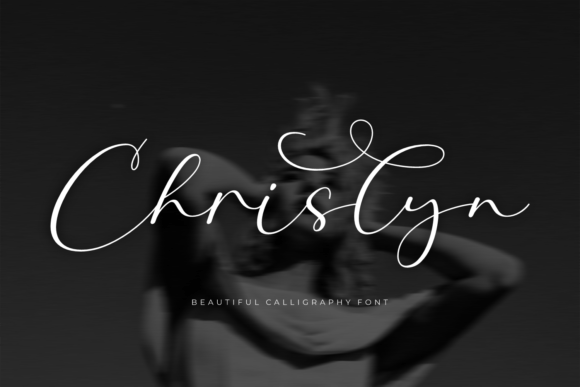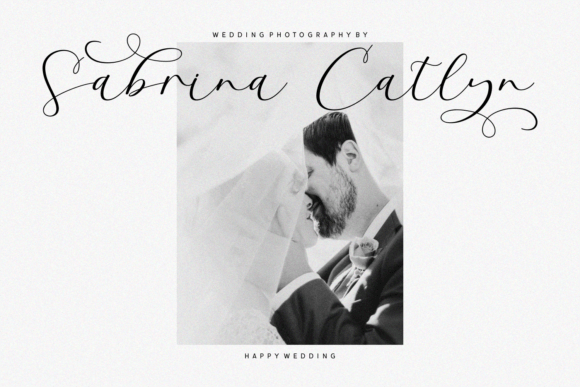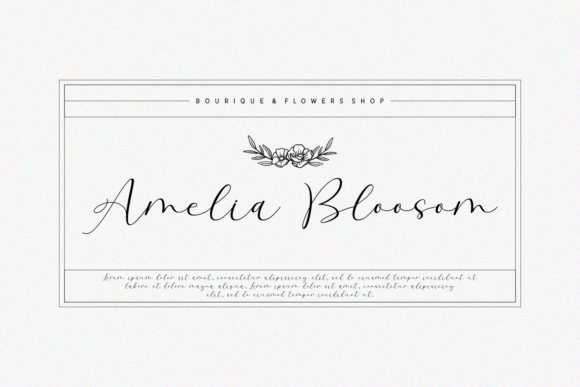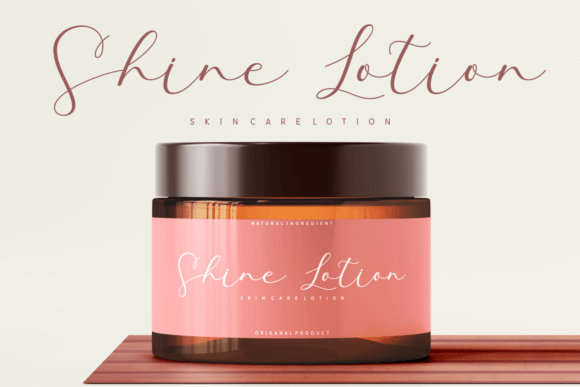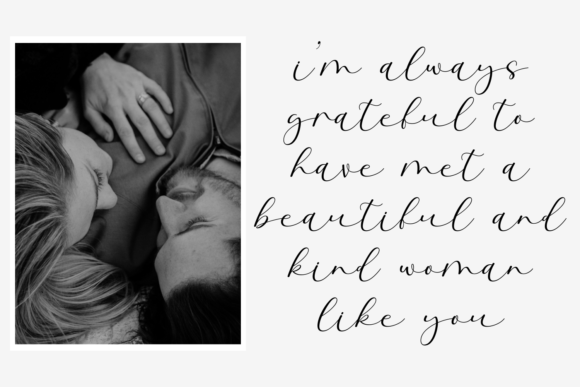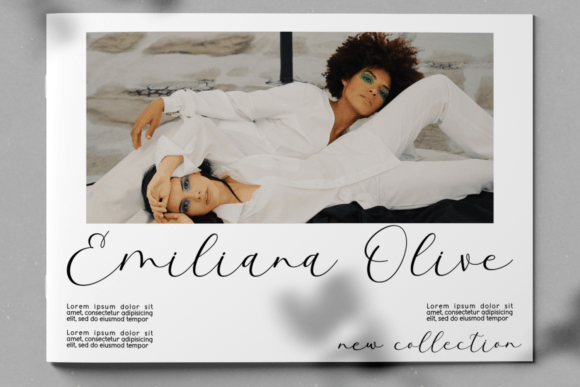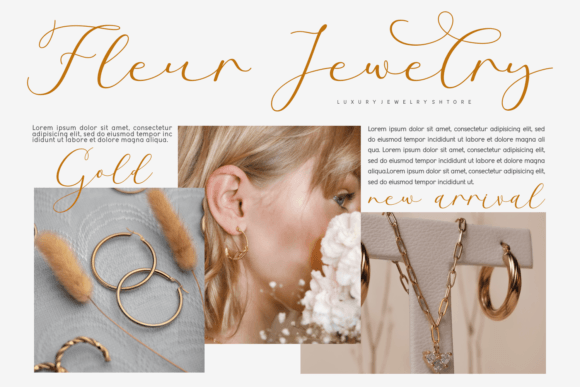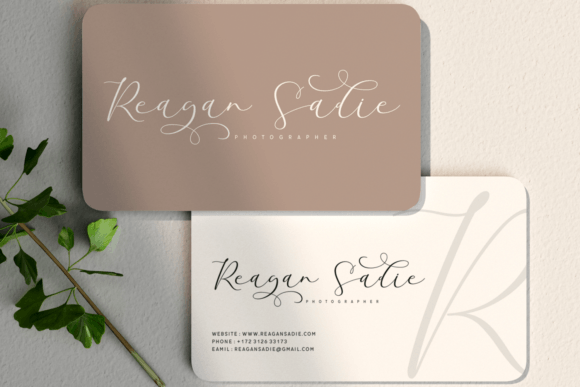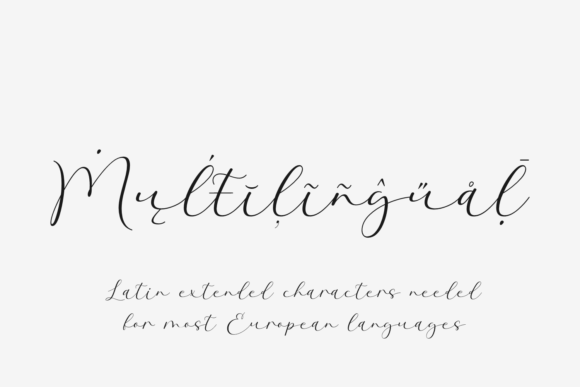
Chrislyn Font
“Chrislyn” is a stylish calligraphic font that exudes an organic and elegant feel. This beautiful cursive typeface is designed to elevate your creations, adding a touch of sophistication to various design projects. It particularly shines on invitations, business cards, product designs, and more.
The calligraphic style of “Chrislyn” contributes to its stylish and elegant appearance. Its fluid and graceful letterforms create a sense of beauty and sophistication, making it an ideal choice for projects that require a touch of classic charm.
In invitations, “Chrislyn” becomes a key element in setting the tone for special events. Its stylish calligraphy adds a level of refinement, making it suitable for weddings, parties, and other occasions where a touch of elegance is desired.
For business cards, the font brings a level of sophistication that enhances the overall professional image. Its organic feel adds a personal touch, making your business cards stand out with a stylish and memorable aesthetic.
In product designs, “Chrislyn” becomes a versatile and visually appealing choice. Whether used for packaging, labels, or promotional materials, this font adds a touch of elegance that elevates the perceived value of the product.
The PUA encoding of this font ensures easy access to glyphs and swashes, providing you with the flexibility to customize and personalize your designs effortlessly. This feature allows you to add extra flair and creative elements to your projects.
In summary, “Chrislyn” is a font that combines style and elegance, making it a perfect choice for various design projects. Whether you’re working on invitations, business cards, or product designs, let “Chrislyn” be the calligraphic font that brings a beautiful and organic feel to your creations.